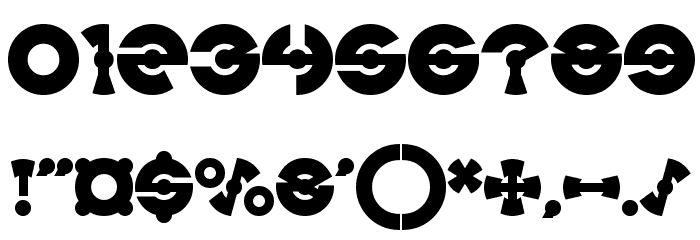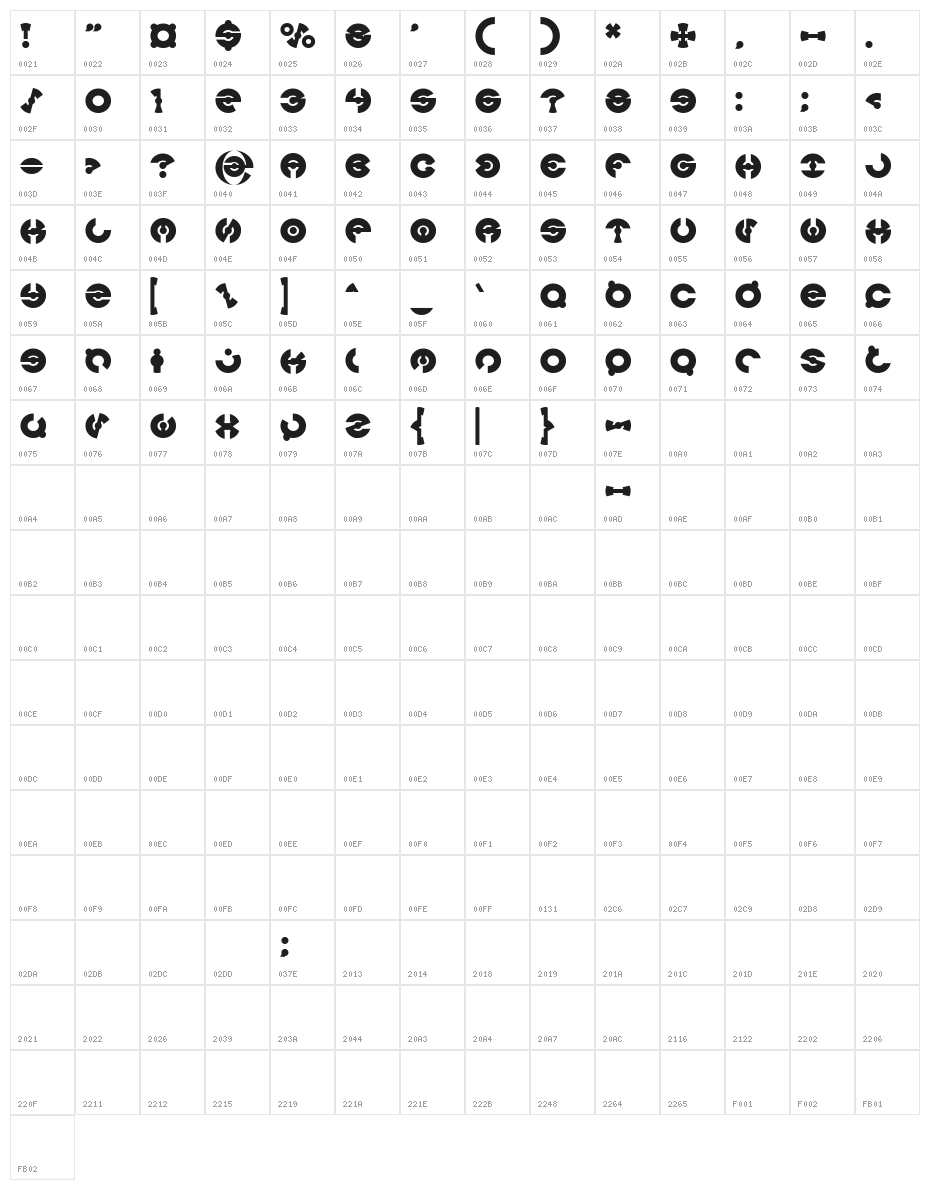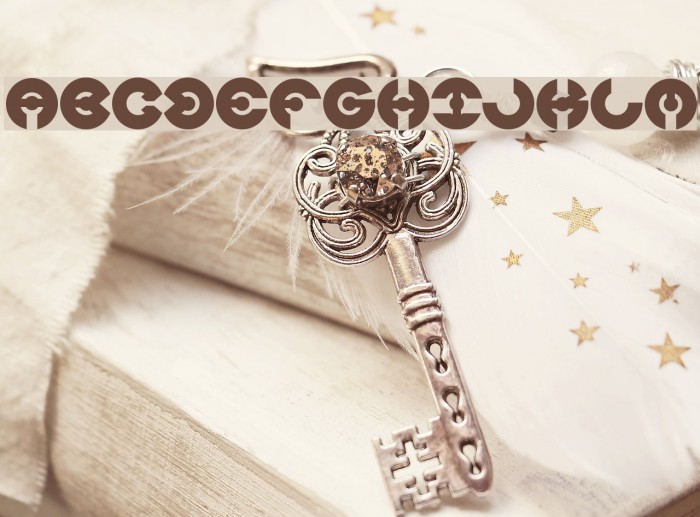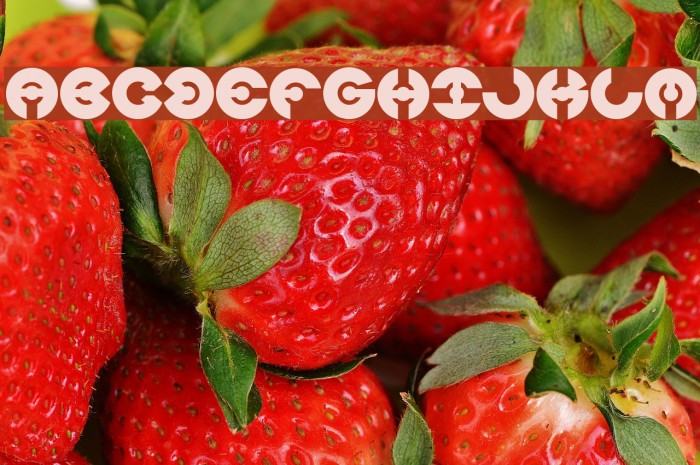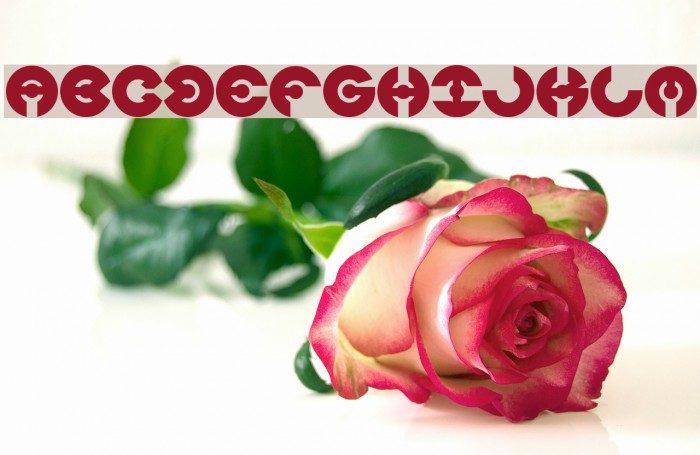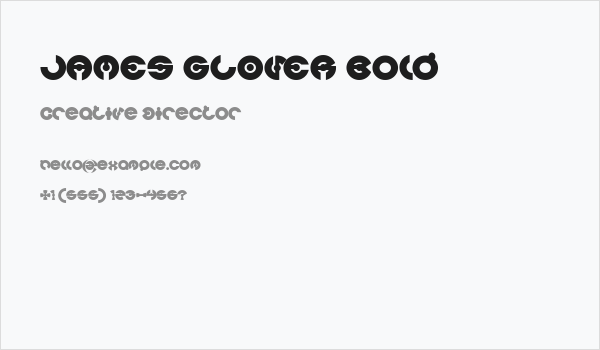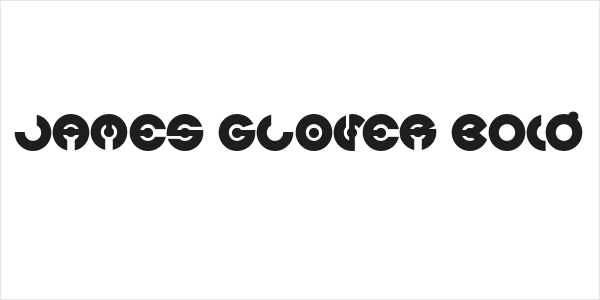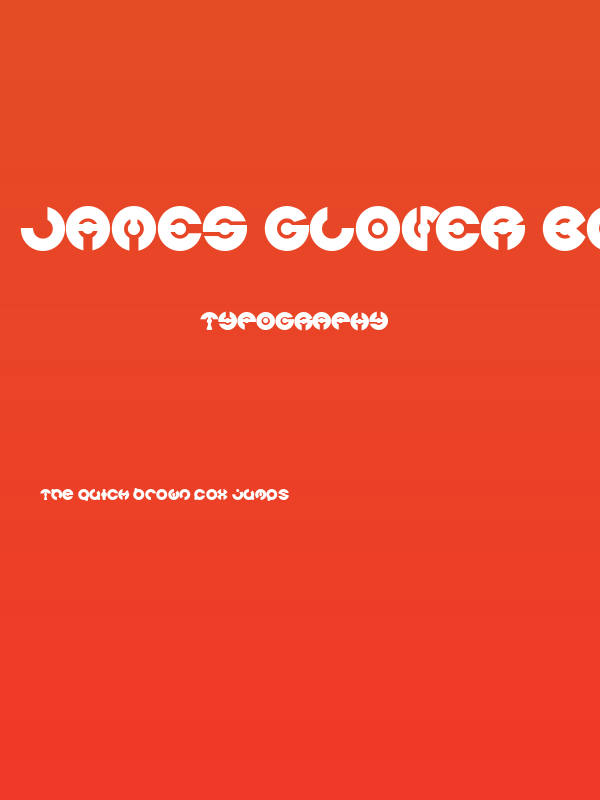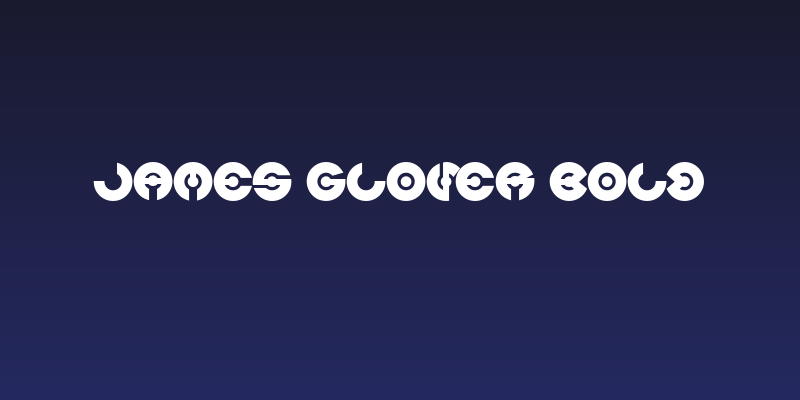
JAMES GLOVER Bold Font
JAMES GLOVER Bold Description
This font features a bold and geometric style with a unique circular motif. Each character is designed with a consistent circular form, incorporating cutouts and negative space to create a futuristic and abstract appearance. The uppercase and lowercase letters maintain a uniformity in their circular shapes, while the numbers and special characters follow the same design principles. The font's boldness and distinctiveness make it stand out, offering a modern and artistic flair. The use of symmetry and repetition in the design elements contributes to its cohesive and striking visual impact.
Proposed ProjectsIdeal for futuristic branding, sci-fi themed projects, modern art posters, and innovative product packaging.